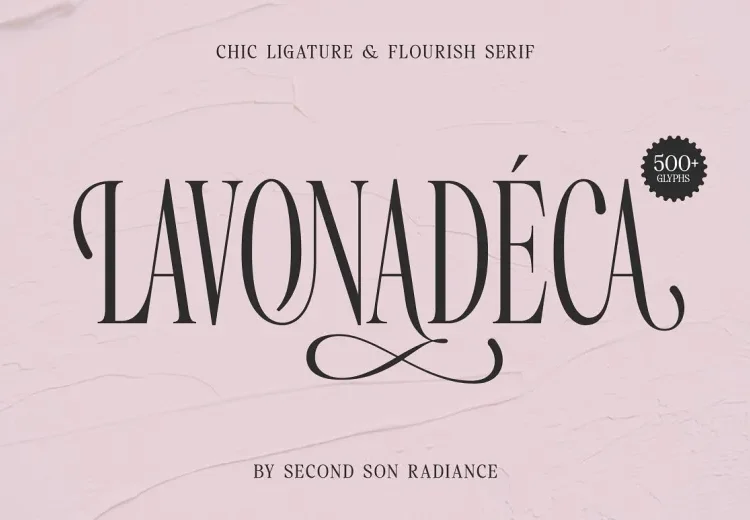
Lavonadeca Font
Lavonadeca is an elegant and sophisticated serif font that effortlessly blends contemporary charm with timeless style. Featuring a variety of alternative ligatures, it offers users the freedom to create custom, stylish designs with ease.
Perfect for high-end, feminine, and luxurious projects, Lavonadeca is ideal for branding, logo design, wedding invitations, fashion magazines, and other elegant designs.
Its unique character set ensures versatility while maintaining a graceful, refined look, making it a standout choice for projects that require a touch of class.